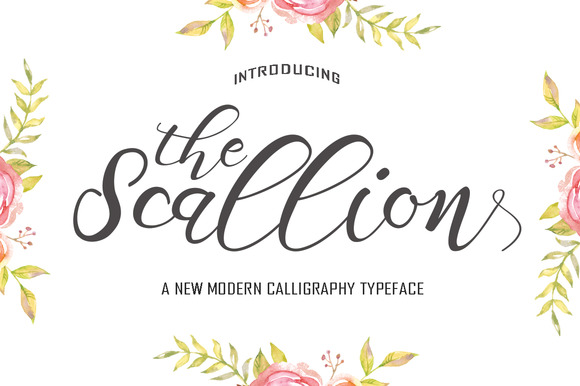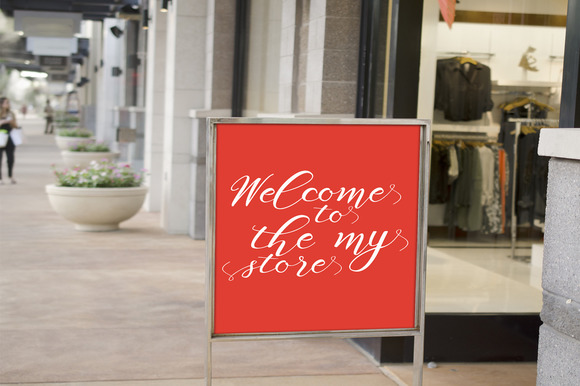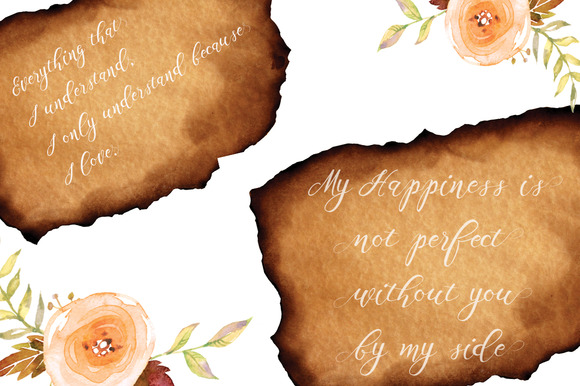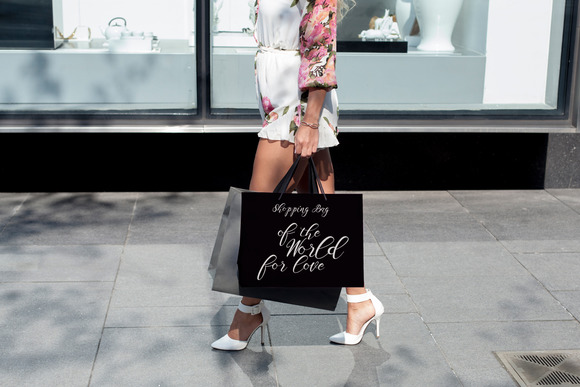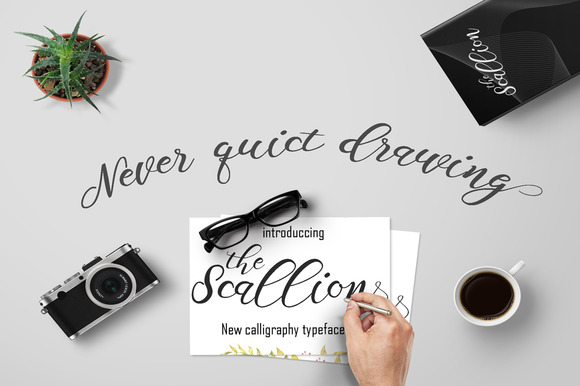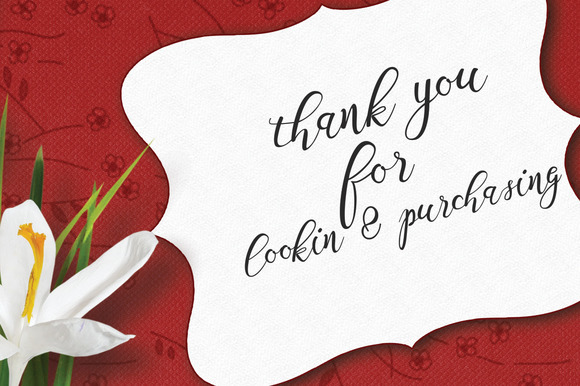
Scallion Font
About Scallion Font
The Scallion font is a elegant handwritten typeface.
The modern calligraphy style applied to this fontĀ feels very natural and is suitable for many different designs.